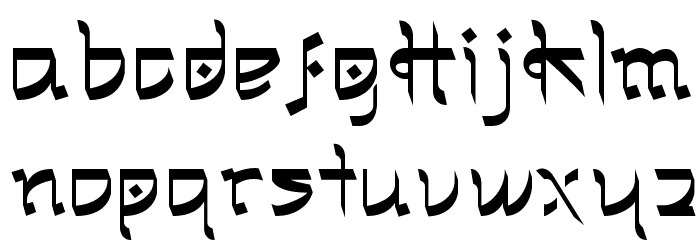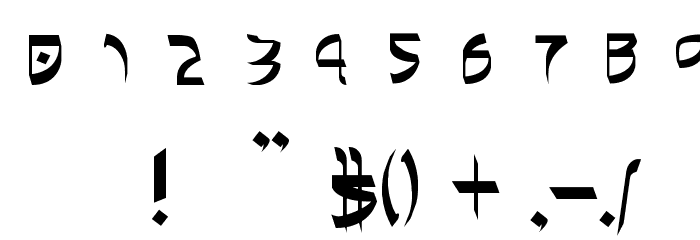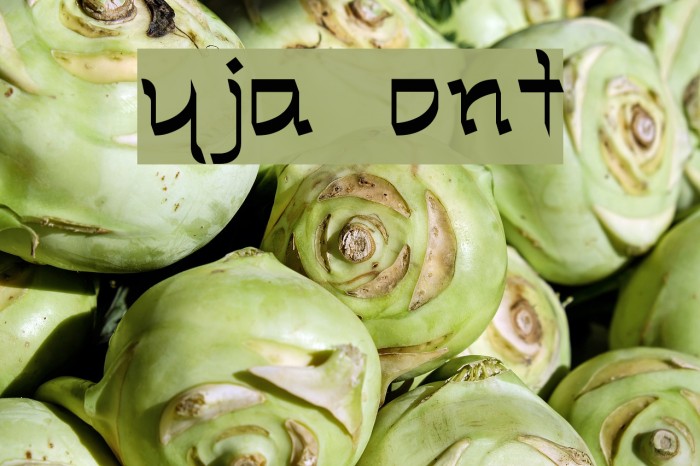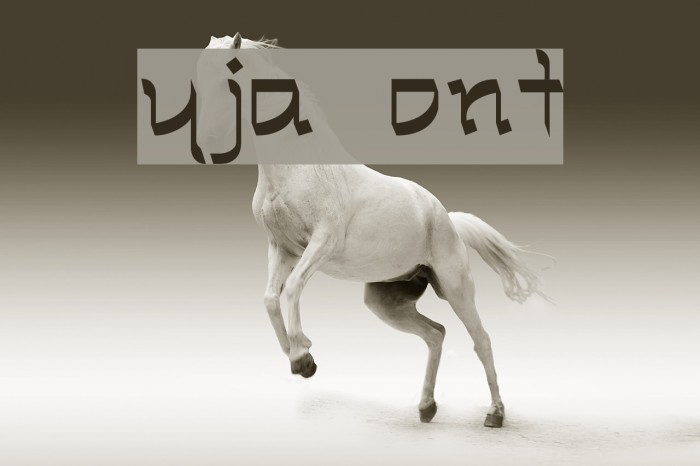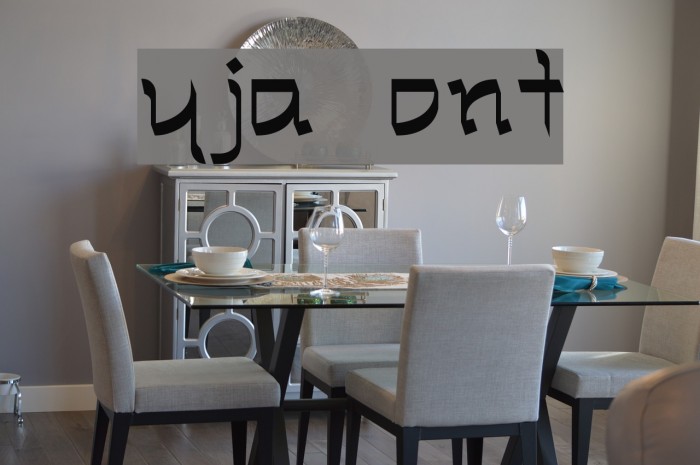
Ryja Font
This font features a unique and artistic design with a strong emphasis on angular and geometric shapes. The characters are bold and have a distinct, edgy appearance, reminiscent of ancient scripts or runes. The strokes are thick and consistent, giving the font a solid and impactful presence. The overall style is decorative, making it suitable for projects that require a touch of mystery or a historical feel. The special characters maintain the same angular theme, ensuring consistency throughout the font.
An angular, bold, and decorative font with a mysterious, ancient script vibe.
- Proposed Projects: Ideal for fantasy-themed designs, video game titles, movie posters, or any project needing a historical or mystical touch.